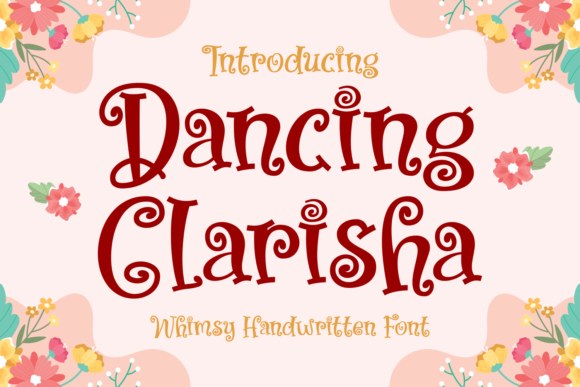
Step into a world of enchanting typography with Dancing Clarisha, the whimsical display font that will sprinkle magic into your designs. Picture a font infused with the sweetness of sugar cookies, the magic of confetti, and the joy of childhood, all rolled into one. Dancing Clarisha isn't just a font; it's a delightful journey into the realm of imagination.
With its playful curves and energetic letterforms, Dancing Clarisha dances effortlessly across your screen, spreading happiness and cheer wherever it goes. Each character is like a little masterpiece, crafted with intricate details that capture both the innocence and exuberance of youth.
Whether you're designing invitations for a whimsical baby shower, crafting posters for a local theater production, or sending heartfelt letters to loved ones, Dancing Clarisha will add a touch of enchantment to your creations. It's the perfect font for anyone who embraces the extraordinary and seeks to add a bit of whimsy to their everyday life.
Imagine your words taking flight, carried by the whimsical wings of Dancing Clarisha. Allow your creativity to soar as you explore the boundless possibilities of this captivating font.